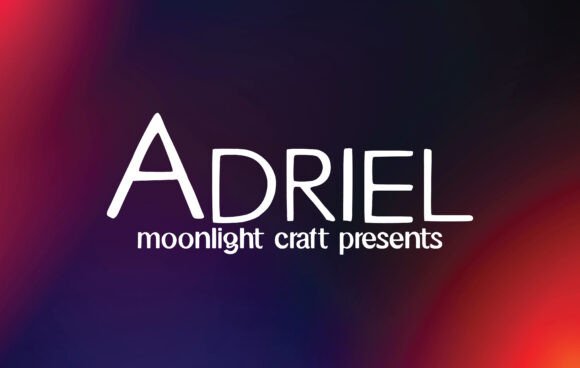
Introducing Adriel Font: Elevate Your Creative Ideas with a Lovely Handwritten Font
In the world of typography, fonts play a crucial role in conveying messages, expressing emotions, and creating visual identities. Among the numerous fonts available, Adriel Font stands out as a lovely and beautiful handwritten font that has the potential to take your creative ideas to the highest level. In this article, we’ll explore the features, benefits, and uses of Adriel Font, and why it’s the best choice for creating eye-catching logos, branding, and quotes.
What Makes Adriel Font Special?
- Handwritten Elegance: Adriel Font boasts a beautiful, handwritten design that exudes elegance and sophistication. Its unique strokes and curves make it perfect for creative projects that require a personal touch.
- Versatility: Adriel Font is an incredibly versatile font that can be used for a wide range of applications, from logos and branding to quotes and social media graphics.
- Readability: Despite its elegant design, Adriel Font remains highly readable, making it suitable for both digital and print materials.
- Uniqueness: Adriel Font’s distinct style sets it apart from other fonts, ensuring that your creative projects stand out from the crowd.
Unlocking the Potential of Adriel Font: Creative Use Cases
Adriel Font’s versatility and beauty make it an excellent choice for various creative projects. Here are some of the most popular use cases:
- Logo Design: Create stunning logos that leave a lasting impression with Adriel Font. Its elegant design and uniqueness make it perfect for branding and identity projects.
- Branding: Establish a strong visual identity with Adriel Font. Use it for business cards, letterheads, and other marketing materials to create a cohesive brand image.
- Quotes and Typography: Add a touch of elegance to your quotes and typography projects with Adriel Font. Its readability and beauty make it ideal for creating inspiring and thought-provoking content.
- Social Media Graphics: Elevate your social media presence with Adriel Font. Use it to create engaging graphics, posters, and flyers that capture your audience’s attention.
- Packaging Design: Make your products stand out with Adriel Font. Use it for packaging design to create a unique and memorable brand experience.
Why Choose Adriel Font for Your Creative Projects?
Adriel Font offers numerous benefits that make it an attractive choice for creative professionals and businesses. Here are some of the advantages of using Adriel Font:
- Time-Saving: With Adriel Font, you can save time and effort in designing and developing your creative projects. Its elegant design and versatility make it easy to use and adapt.
- Cost-Effective: Adriel Font is a cost-effective solution for businesses and individuals looking for high-quality typography. Its versatility and uniqueness make it a valuable investment for any creative project.
- Consistency: Adriel Font ensures consistency across your brand’s visual identity. Use it across various marketing materials to create a cohesive and recognizable brand image.
- Emotional Connection: Adriel Font’s elegant design and beauty can help create an emotional connection with your audience. Use it to convey your brand’s values, personality, and message.
Getting the Most Out of Adriel Font: Tips and Best Practices
To maximize the potential of Adriel Font, here are some tips and best practices to keep in mind:
- Pair it with Other Fonts: Experiment with pairing Adriel Font with other fonts to create a unique and visually appealing typography.
- Adjust Font Sizes: Adjust font sizes to create visual hierarchy and emphasize important information.
- Use it for Headings and Titles: Use Adriel Font for headings and titles to create a strong visual impact.
- Experiment with Colors: Experiment with different colors to find the perfect match for your brand and creative project.
In conclusion, Adriel Font is a lovely and beautiful handwritten font that has the potential to elevate your creative ideas to the highest level. Its elegance, versatility, and uniqueness make it the best choice for creating eye-catching logos, branding, and quotes. With its numerous benefits, including time-saving, cost-effectiveness, and consistency, Adriel Font is an excellent addition to any creative project. By following the tips and best practices outlined above, you can unlock the full potential of Adriel Font and take your creative projects to new heights.